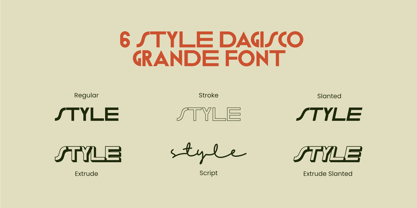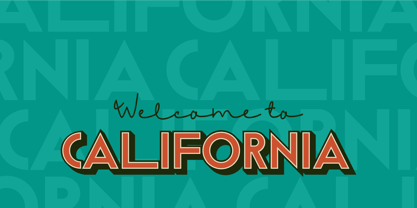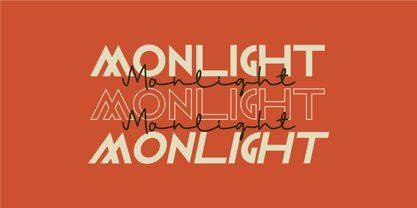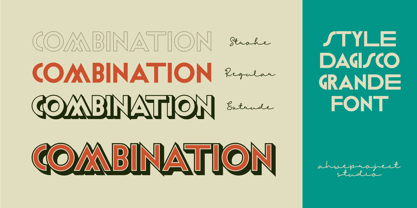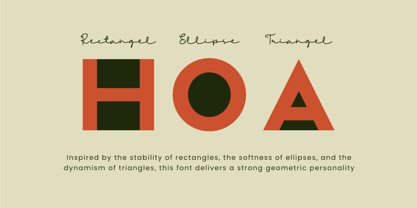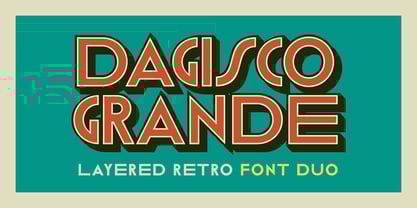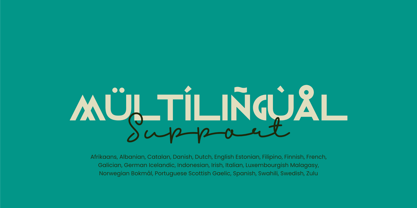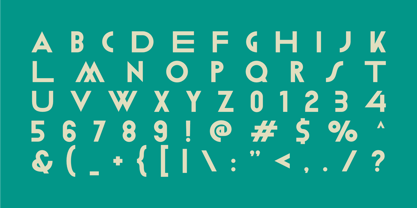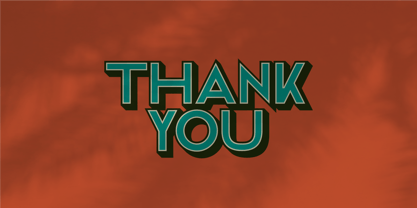
Dagisco Grande
by ahweproject
The Dagisco Grande Font Family was designed by Dida Ahluddin and published by ahweproject. Dagisco Grande contains 6 styles and family package options. More about this family
Meet Dagisco Grande, a unique font duo that combines a retro-style layered sans serif with an elegant signature script. Designed with the spirit of the vintage era yet crafted to stay relevant in modern design, this font duo is ready to elevate your visual identity across a wide range of creative projects. Dagisco Grande Sans Serif features bold, sharp characters inspired by colorful retro 70s design, complete with eye-catching 3D shadow effects. Meanwhile, Dagisco Grande Script brings a smooth and graceful handwritten style, perfect for adding feminine touch to taglines, subheadings, or signature-style elements. Features : - Uppercase & lowercase - Numbers and punctuation - Multilingual - PUA encoded - Font Duo (Sans Serif & Script) We strongly recommend using applications that support Opentype Features and Glyphs panels. So you can see and access all the variations of Glyphs. Happy Design!
Designers: Dida Ahluddin
Foundry: ahweproject